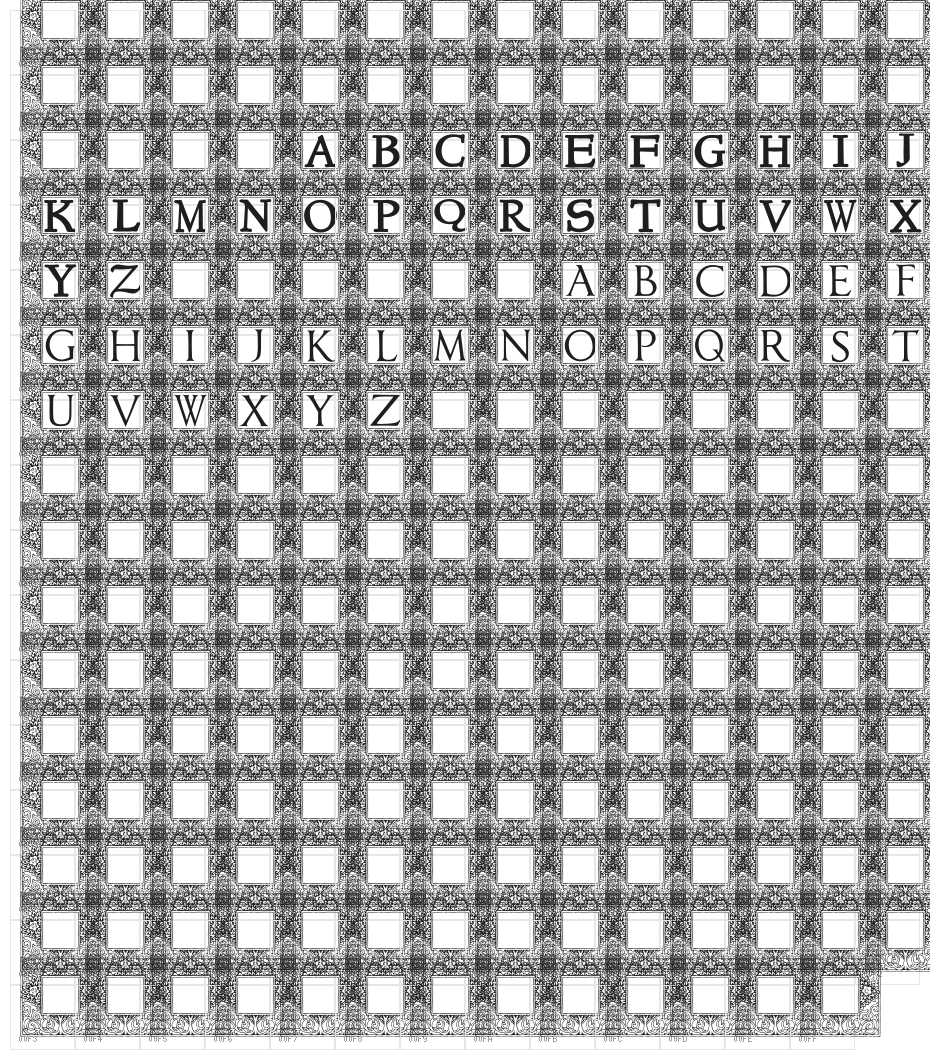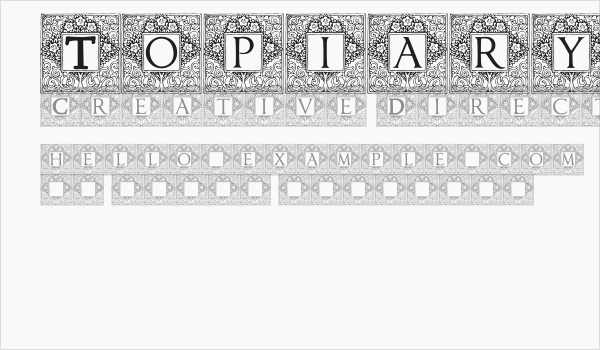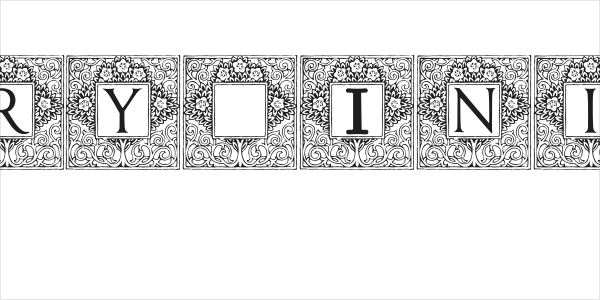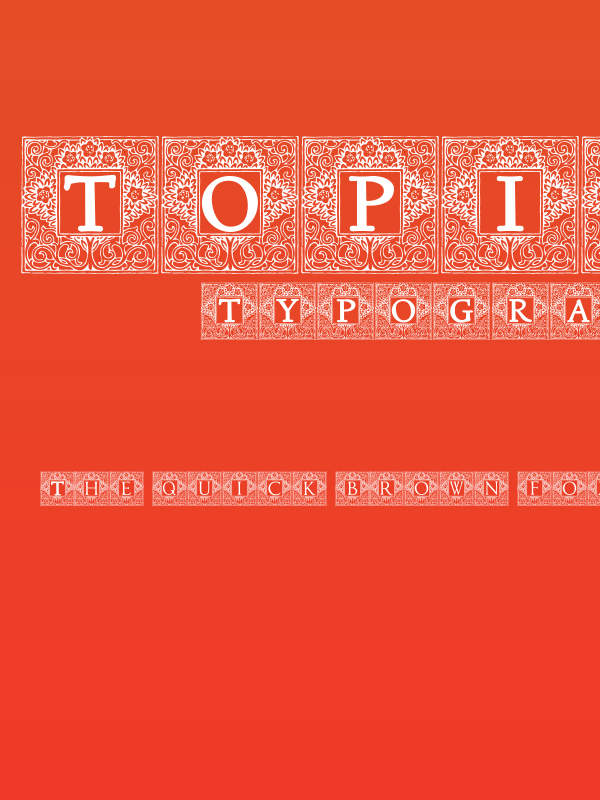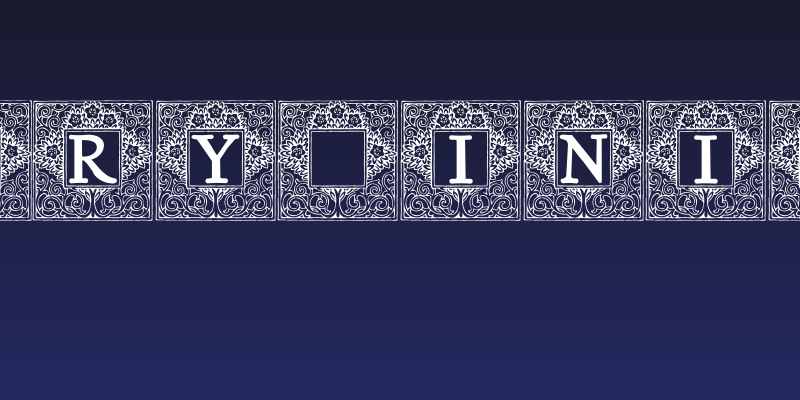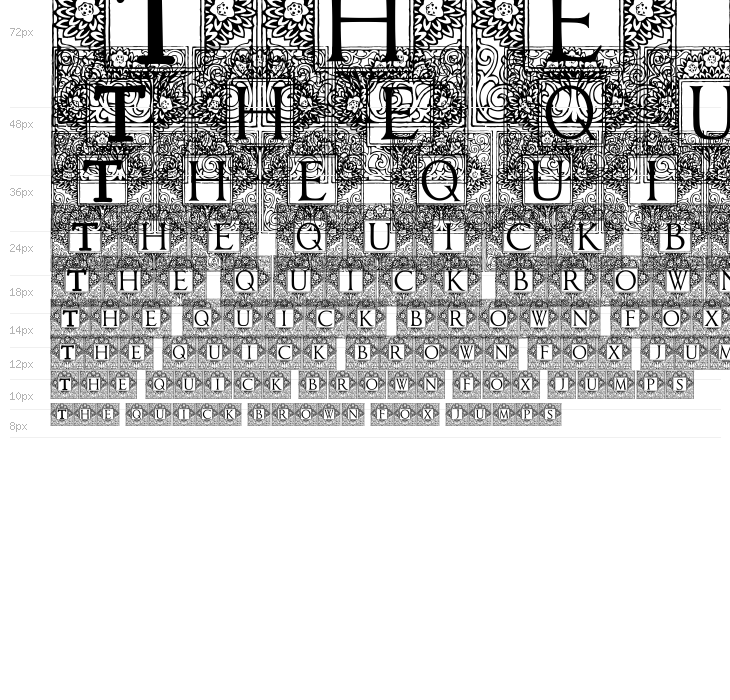
Topiary_Initials Font
Topiary_Initials Description
This decorative font features uppercase letters enclosed within ornate, square frames, reminiscent of intricate garden topiary designs. Each letter is bold and distinct, set against a detailed floral background that adds a touch of elegance and sophistication. The font's style is highly decorative, making it ideal for projects that require a touch of classic charm and artistic flair. The consistent framing around each character provides a uniform appearance, while the intricate details within the frames offer a sense of luxury and refinement.
| Use Case | Logos, Headlines, Decorative purposes |
| Proposed Projects | Ideal for wedding invitations, luxury branding, decorative book covers, and artistic posters. |